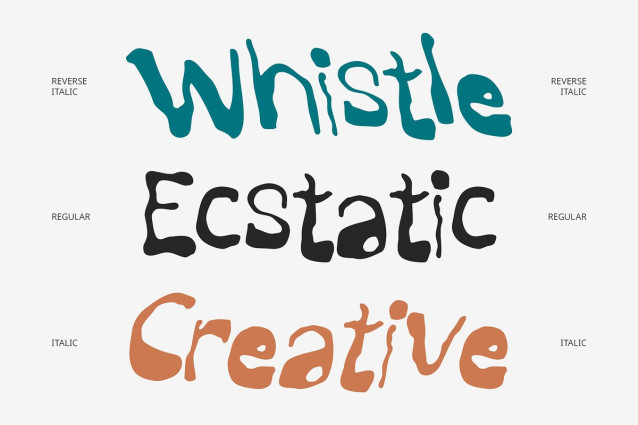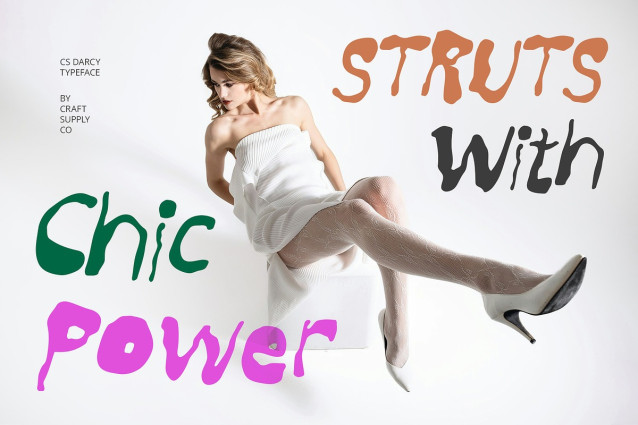
CS Darcy Font
CS Darcy Font is a display font that embraces imperfection with style. Featuring a distinctive etchy texture, it mimics hand-scratched strokes, giving every letter a naturally expressive and handmade feel. This raw, unpolished aesthetic adds authenticity and vibrancy to any visual project.
Funky and Creative Vibe With its irregular forms and lively energy, CS Darcy radiates a funky and playful spirit. Each character feels alive with motion, ideal for injecting creativity into casual and bold designs that don’t take themselves too seriously.
Perfect for Artistic and Informal Designs CS Darcy shines in music posters, quirky illustrations, zines, and branding for creative or indie projects. Its dynamic look captures attention while maintaining an approachable, friendly tone—perfect for designers aiming to break norms and show personality.
Add a Handcrafted Edge to Your Visuals Whether you’re designing for art events, handmade products, or youth-focused branding, CS Darcy delivers expressive charm and a standout edge. Its sketch-like lines bring spontaneity and soul to every layout, making it a go-to choice for bold, unconventional ideas.